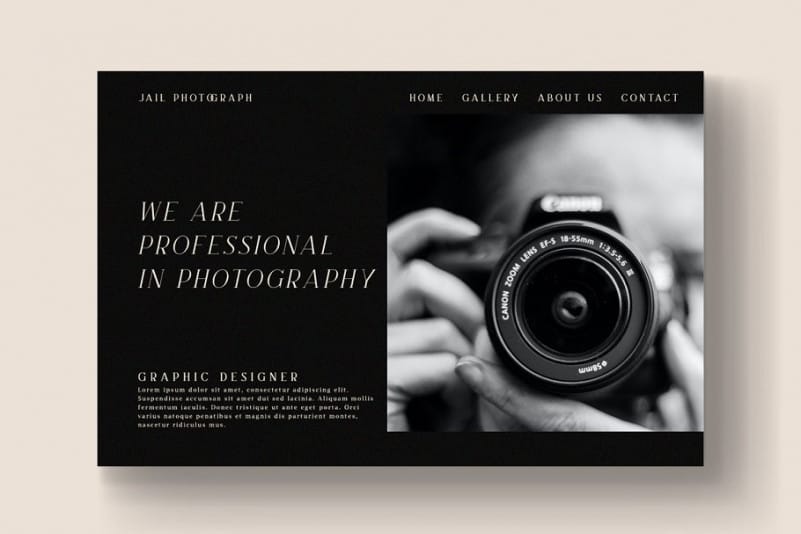
Say hello to Brooke Serif Font. Serif typeface with a modern and classic look and feel, this font is made with a variety of unique font alternatives so that it is easy to apply. It is a font from the designer Heinzel Studio. It’s a modern serif font and minimalist character! Brooké perfect use for logos, print, collage, body text, and more! It looks minimalist a really cool modern-meets-vintage look to any piece.